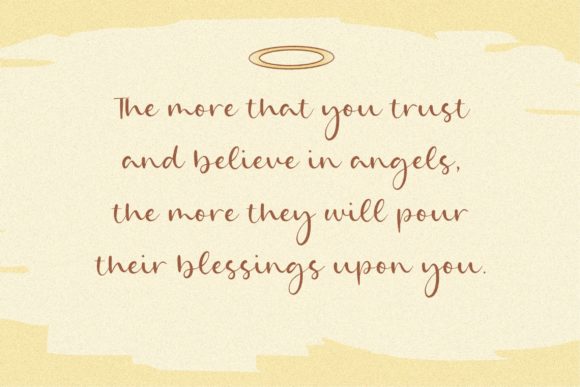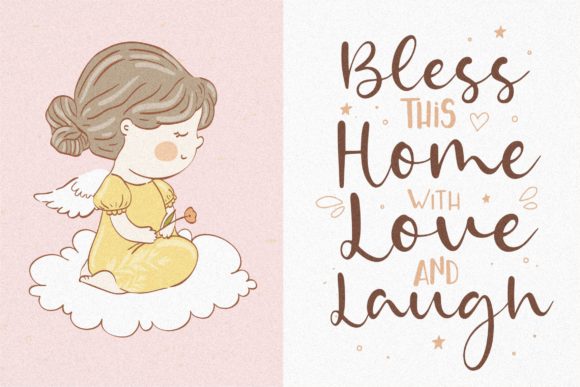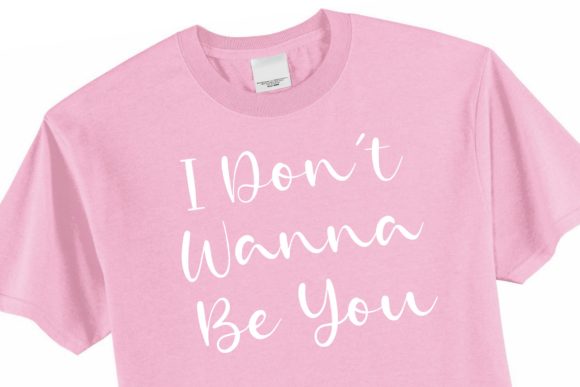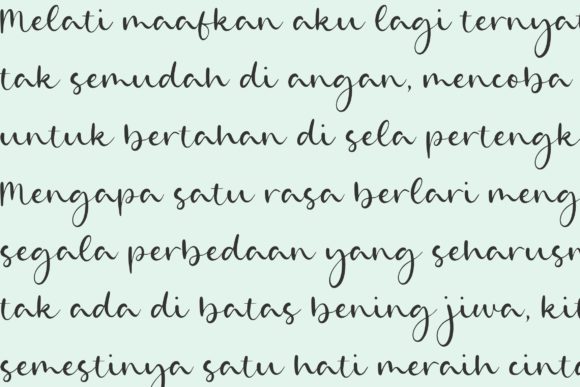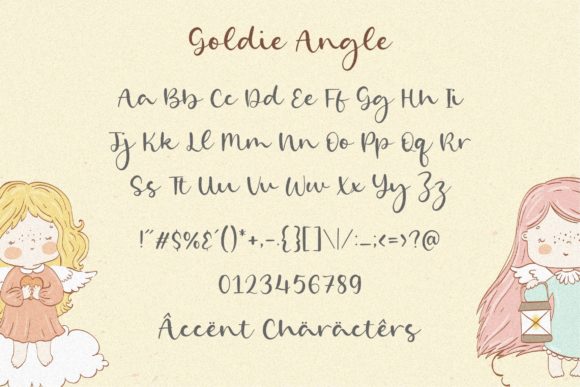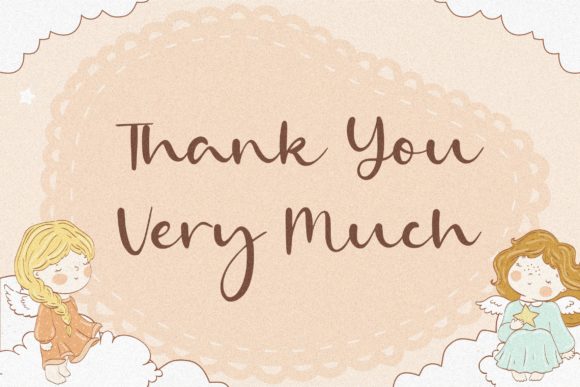
Introducing Goldie Angle Font: The Ultimate Handwritten Elegance
Are you a designer or crafter looking for a unique and elegant handwritten font to elevate your creative projects? Look no further than Goldie Angle Font! This stunning font is incredibly distinct, delicate, and timeless, making it perfect for a wide range of applications, from wedding invitations to business cards.
The Characteristics of Goldie Angle Font
Goldie Angle Font boasts a distinctive handwritten style that exudes elegance and sophistication. Its delicate lines and curves create a sense of refinement, making it ideal for designs that require a touch of luxury. The font’s timeless quality ensures that it will remain relevant and stylish for years to come, regardless of changing design trends.
Goldie Angle Font is particularly well-suited for wedding invitations, save-the-date cards, and other event-related designs. Its romantic and whimsical feel creates a beautiful atmosphere, perfect for celebrating special occasions. Whether you’re designing formal or casual wedding materials, this font is sure to impress.
Beyond Weddings: Other Uses for Goldie Angle Font
While Goldie Angle Font shines in wedding and event designs, its versatility extends far beyond. This font is also perfect for:
- Quotes and typographic prints
- Business cards and stationery
- Social media graphics and digital art
Why Choose Goldie Angle Font?
With so many fonts available, why choose Goldie Angle Font? Here are just a few reasons:
- Uniqueness: Goldie Angle Font stands out from more common fonts, adding a touch of personality to your designs.
- Elegance: Its delicate lines and curves create a sophisticated, high-end feel.
- Versatility: Use it for a wide range of projects, from formal to casual.
- Timelessness: This font won’t go out of style anytime soon, ensuring your designs remain relevant.
Tips for Using Goldie Angle Font
To get the most out of Goldie Angle Font, consider the following tips:
- Pair it with contrasting fonts: Combine Goldie Angle Font with a clean, modern font to create visual interest.
- Experiment with colors: Try pairing the font with different colors and textures to add depth and dimension.
- Pay attention to spacing: Make sure to leave enough space between lines and words to maintain the font’s delicate feel.
Goldie Angle Font is a beautiful, elegant, and versatile handwritten font that’s perfect for designers and crafters looking to add a touch of sophistication to their projects. With its unique characteristics, timeless quality, and wide range of applications, this font is sure to become a favorite in your design arsenal.